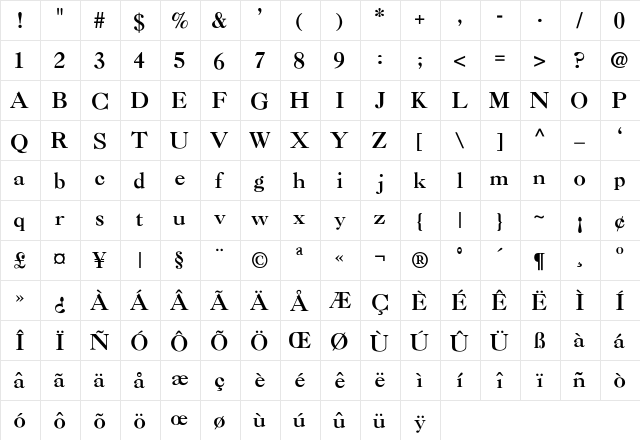
Nelsie-Bold Regular
Design Context for Nelsie-Bold Typeface
Nelsie-Bold offers clean, dependable letterforms without strong stylistic allegiance, making it a practical choice for designers who need flexibility. The heavy weight commands attention and anchors typographic hierarchies.
Pro Tip: Pair Nelsie-Bold with a font of contrasting weight or personality to build a more expressive typographic hierarchy.